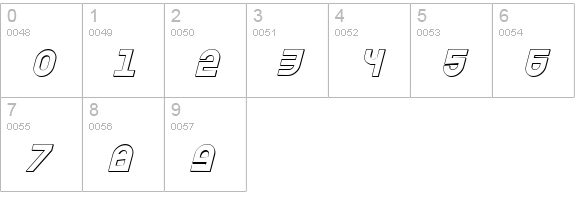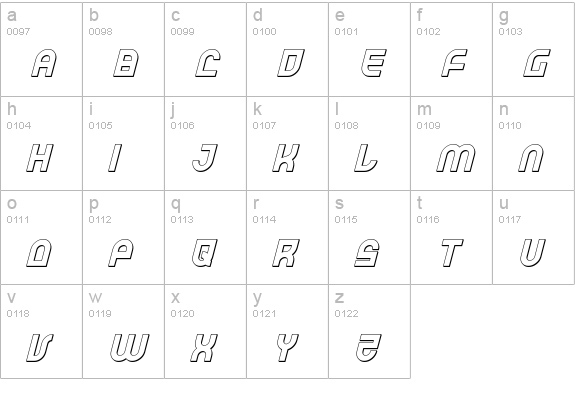
Trek Trooper 3D Italic is a distinctive, italic variant in the Trek typeface family \xE2\x80\x94 well suited to design and typography projects.
Introducing Trek Trooper 3D Italic font - a bold and dynamic typeface designed to make a statement. With its sleek, futuristic design and eye-catching 3D effect, this font exudes a sense of adventure and innovation. Whether you're creating a sci-fi poster, futuristic logo, or dynamic branding materials, Trek Trooper 3D Italic font is sure to give your designs a modern edge. Best of all, this striking font is available for free download at FontsMarket.com! Don't miss out on the opportunity to add Trek Trooper 3D Italic font to your font library and take your designs to the next level. Download it now and let your creativity soar with this unique and captivating typeface.